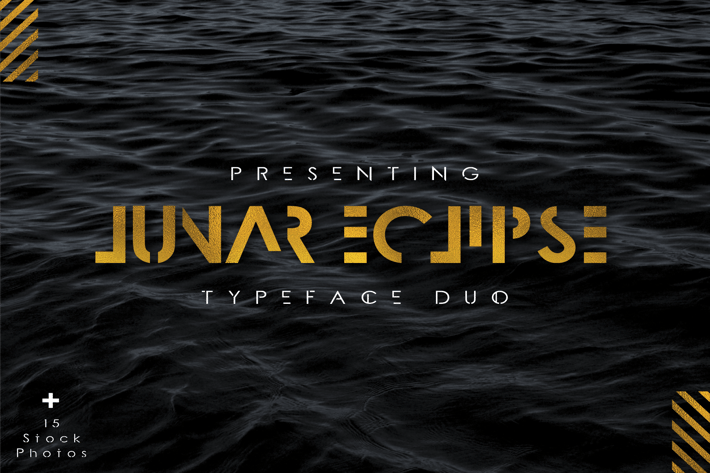
Lunar Eclipse Font Duo
ABOUT LUNAR ECLIPSE
Lunar Eclipse is a bold and stunning font duo that is both clean and edgy! The characters naturally lend themselves to drawing the reader in while giving it a futuristic and eye popping aesthetic perfect for posters, typography quotes, branding, and more! Plus this typeface duo comes with a full stock photo pack of modern and minimilistic photos to add to your design arsenal!
Use it in silver or gold foil based designs or all on its own! It's the perfect compliment to your script fonts. Pick up this Font Duo package and get ready to take over the design world by storm!